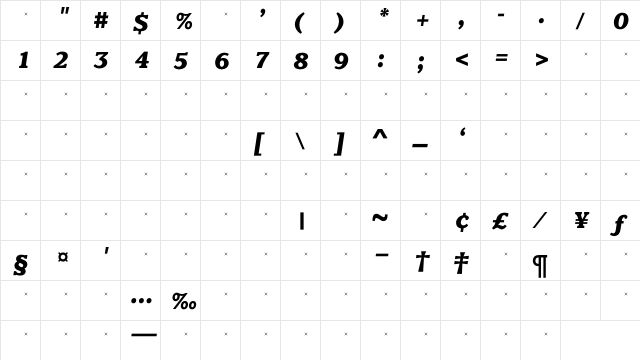
ClaremontExBoldItalTab Regular
Design Context for ClaremontExBoldItalTab Typeface
ClaremontExBoldItalTab takes a measured approach to typography — its balanced proportions and neutral character make it a reliable workhorse for both digital and print work. Its bold stroke weight gives it real presence on the page.